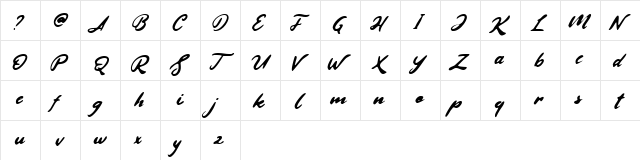
Vintage Quotes Regular
| Foundry | Lettersiro 2019 |
| Designer | Muhammad Sirojuddin |
Design Context for Vintage Quotes Typeface
Vintage Quotes has the warm character of retro typography — evoking diners, record sleeves, and the golden age of print advertising.